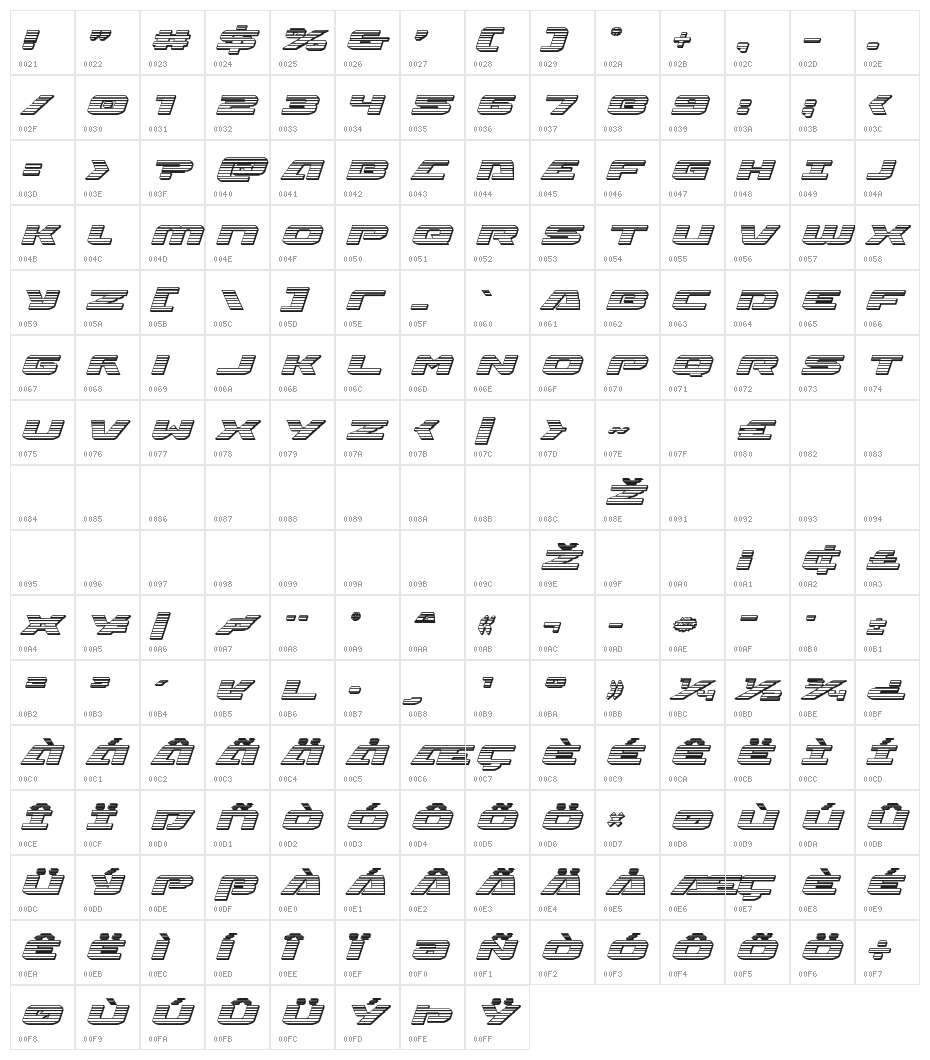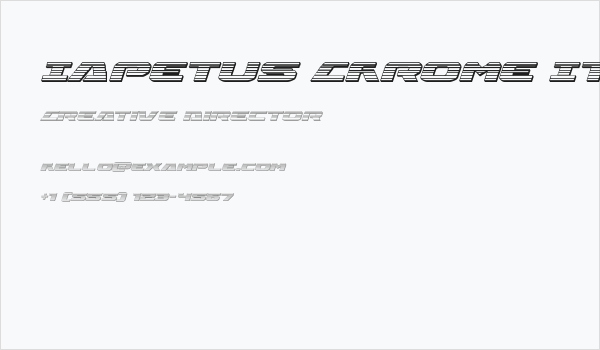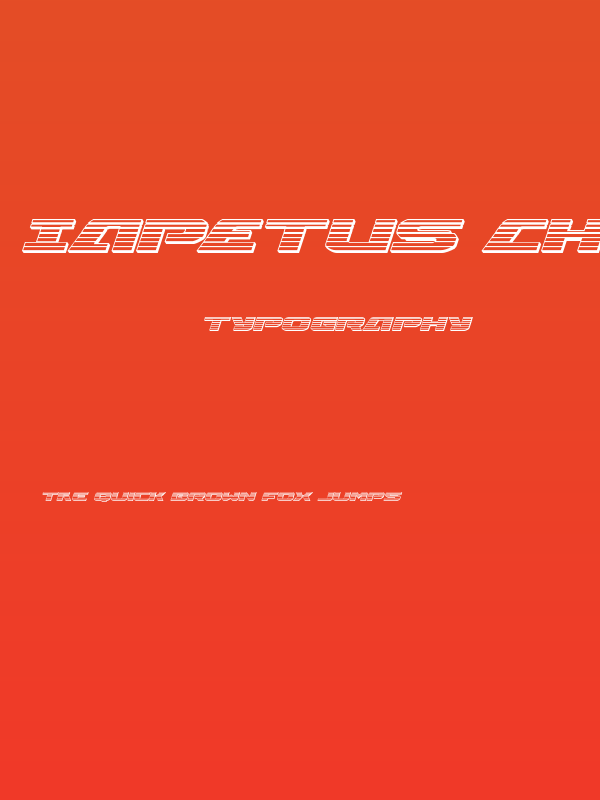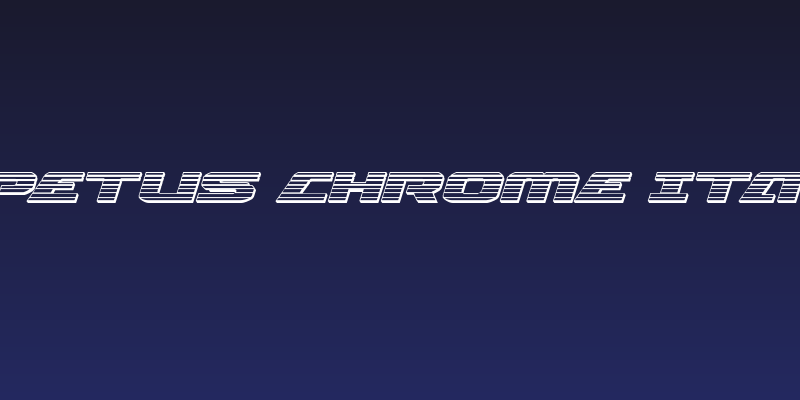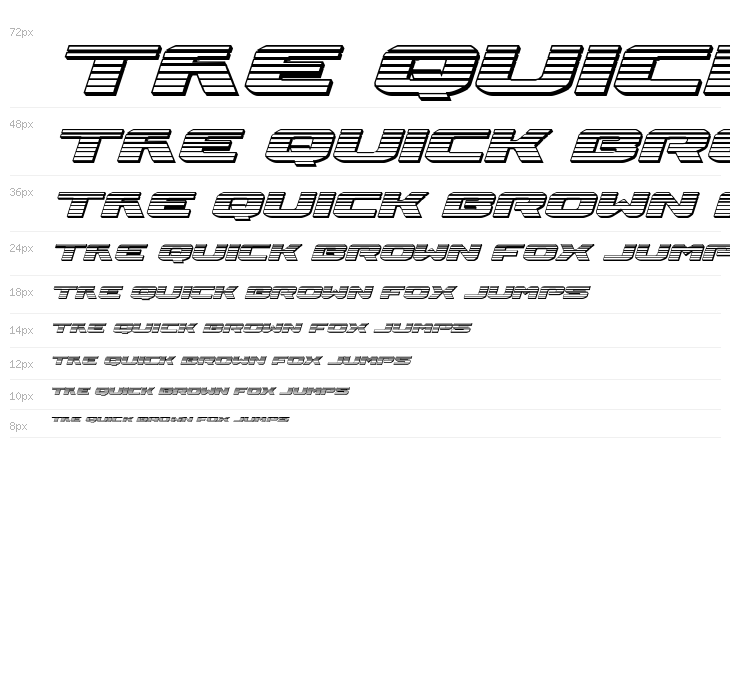
Iapetus Chrome Italic Font
Iapetus Chrome Italic Description
This font features a futuristic and dynamic design, characterized by its bold, italicized letters with a distinct chrome-like appearance. Each character is composed of multiple parallel lines, creating a layered effect that gives a sense of depth and movement. The font maintains a consistent width across all characters, contributing to its uniform and cohesive look. Its geometric shapes and sharp angles enhance its modern and sleek aesthetic, making it ideal for projects that require a cutting-edge and technological feel. The font's unique style is both eye-catching and versatile, suitable for a variety of creative applications.
| Proposed Projects | Ideal for technology branding, sci-fi themed designs, video game titles, and futuristic posters. |